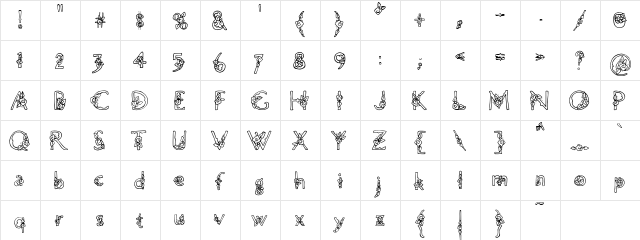
PC Rosebush Regular
Design Context for PC Rosebush Typeface
PC Rosebush is a composed and adaptable typeface that performs quietly and consistently across a wide range of design contexts.